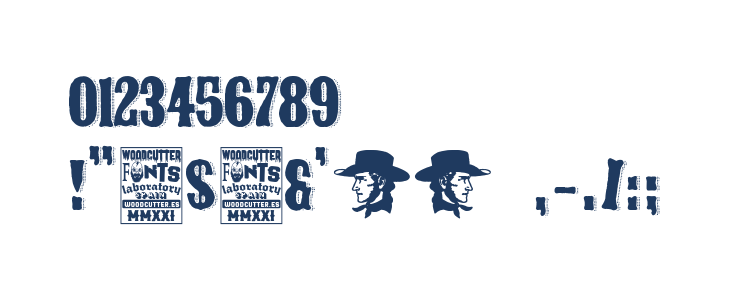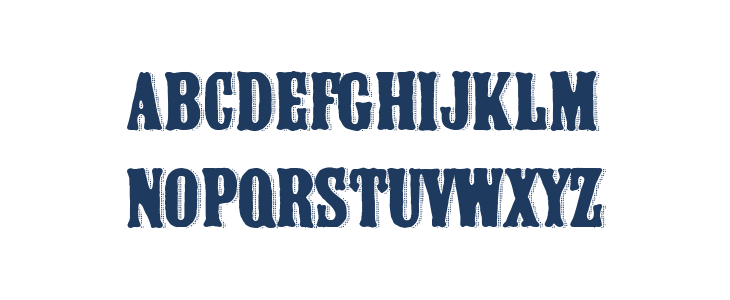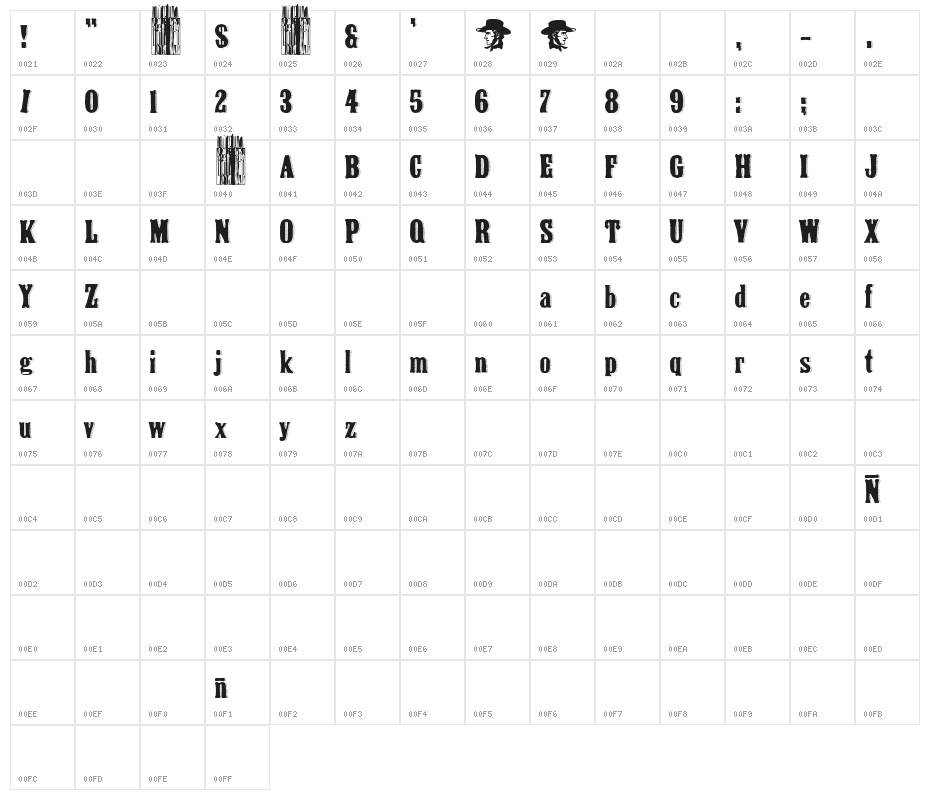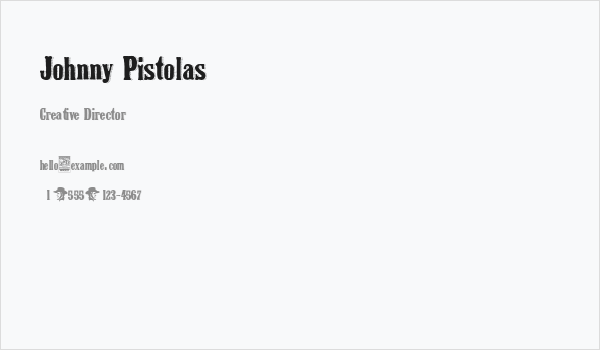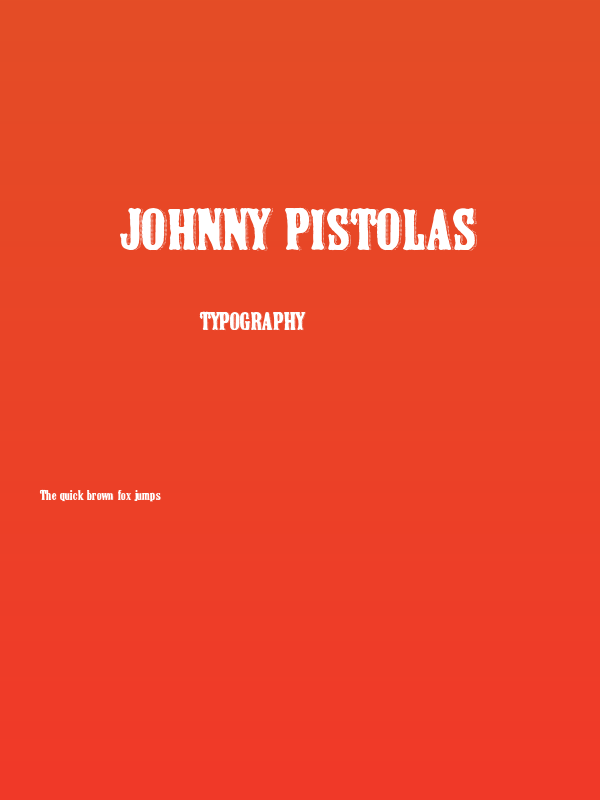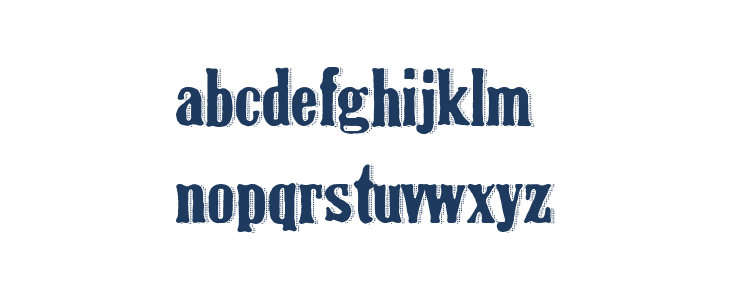
Johnny Pistolas Font
Johnny Pistolas Description
A bold, decorative display font with a distressed, textured effect and slab serif characteristics, evoking a vintage Western or outlaw aesthetic. The letterforms are blocky with uneven edges and a shadowed outline, giving a rugged, hand-crafted appearance.
| Overall Style | Decorative, Vintage, Western |
| Use Case | Headlines, Logos, Posters, Signage |
| Proposed Projects | Posters, event flyers, branding for bars or restaurants, themed party invitations, signage, and logo design for Western or vintage-inspired projects. |